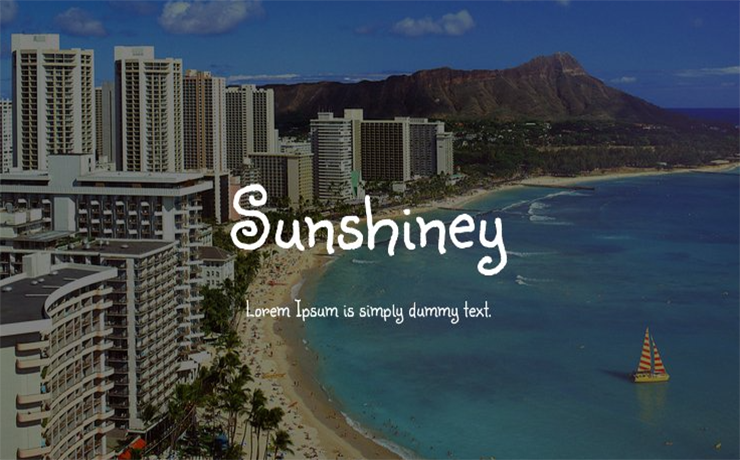
A touch of ornament makes Sunshiney Font look stylish, and in some characters that allow you to mix and match pairs of hand-crafted letters to fit your design.
This font is great for vintage t-shirt designs, logos, labels, posters, and more. This sweet typeface was created and shared by Sideshow.
Sunshine is a small ray of handmade goodness that can lighten the most terrifying atmosphere in the domain.
Basically, the structure is handmade with extra curves. And you’ll notice another cool thing in a letter that adds around a touch to the end of the corner. It enhances its beauty and adds a natural flow to the entire font.
So, it is definitely workable for stylish and modern designs where hand-crafted fonts are needed.
Due to its magnificent look, it is ideal for card printing, game graphics, brand logos, unique emblems, product designs, product packaging, greeting, invitation, special quotes, tattoos, and many more.
Sunshiney Font comes in only a single regular style. This truly creates small to big all-cool tasks instantly.